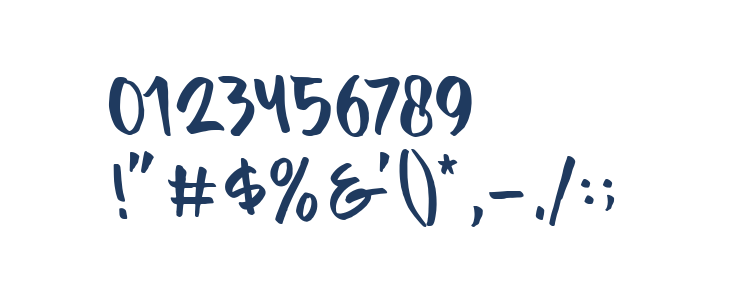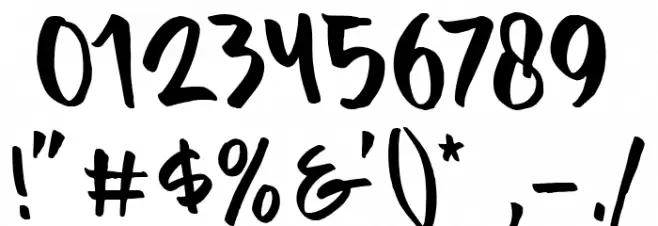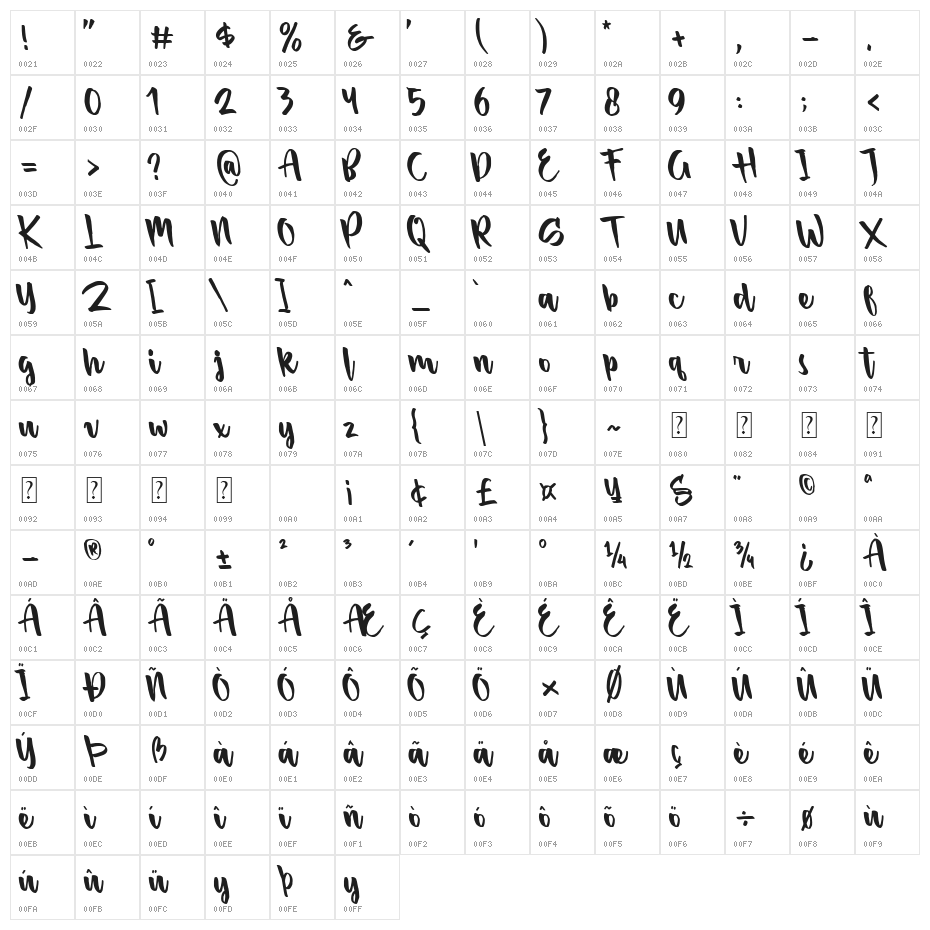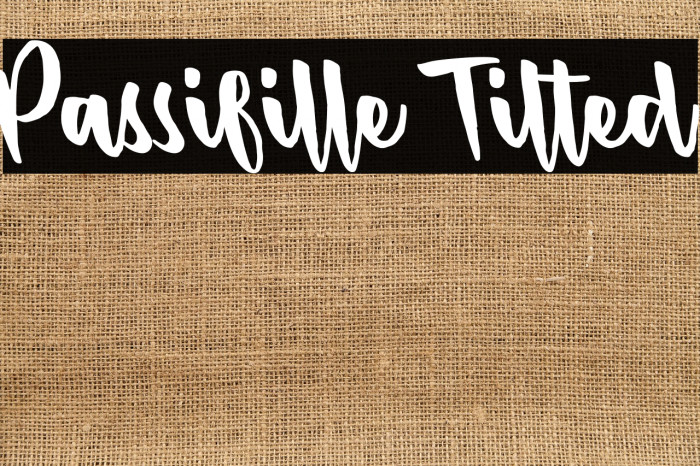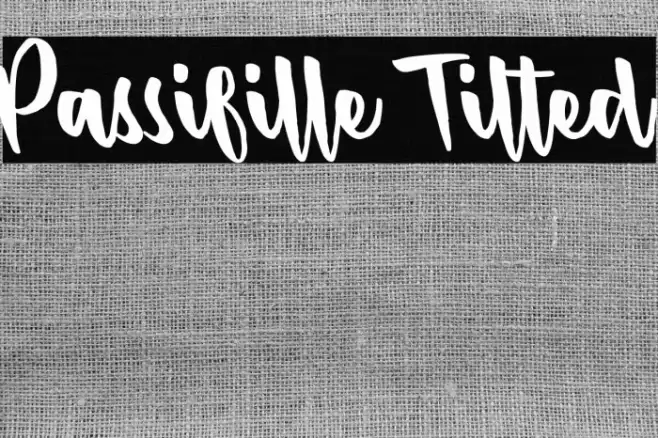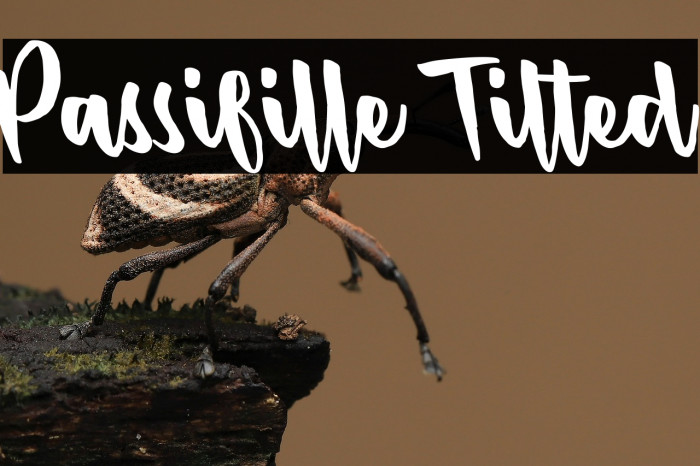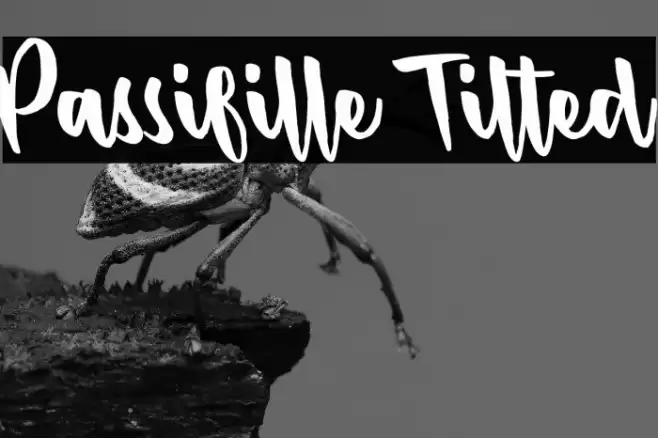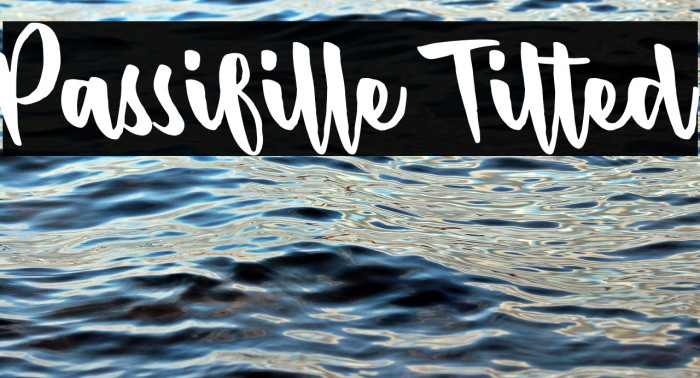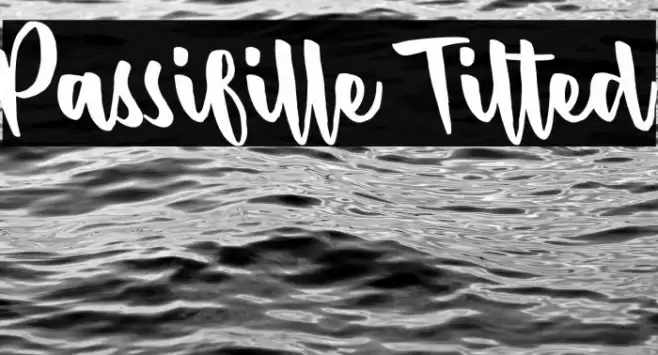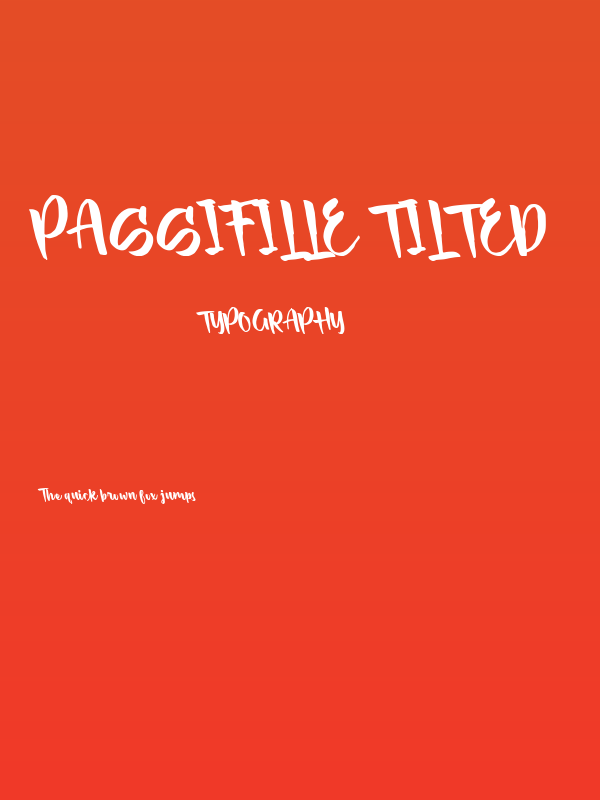
Passifille Tilted Font
Passifille Tilted Description
This font features a bold and energetic handwritten style with a playful tilt, giving it a dynamic and lively appearance. The letters are thick and rounded, with a consistent stroke width that adds to its boldness. The uppercase and lowercase letters flow seamlessly, maintaining a casual yet cohesive look. The numbers and special characters are equally expressive, matching the overall style of the alphabet. This font exudes a sense of fun and creativity, making it ideal for projects that require a personal touch.
| Overall Style | Playful, Energetic |
| Proposed Projects | Ideal for greeting cards, playful branding, social media graphics, and children's book covers. |